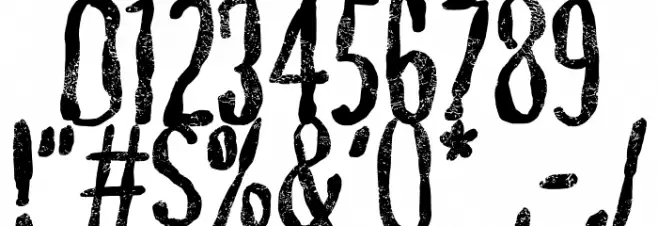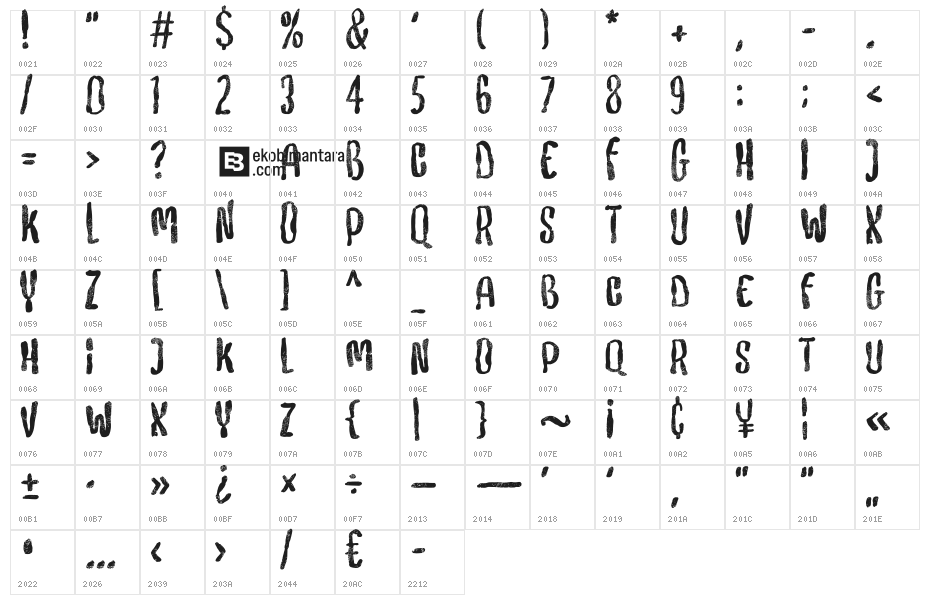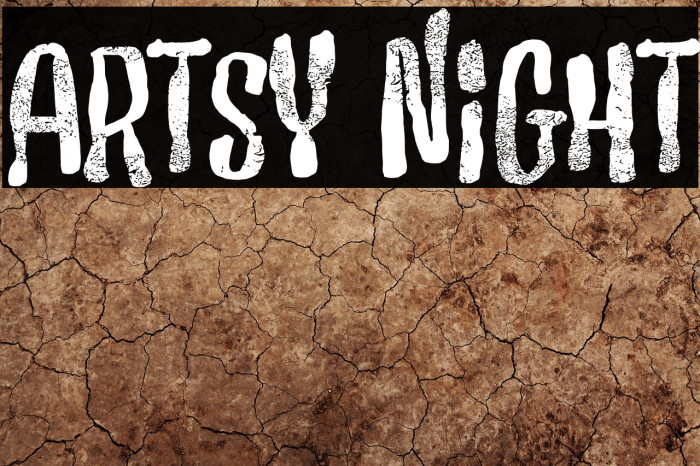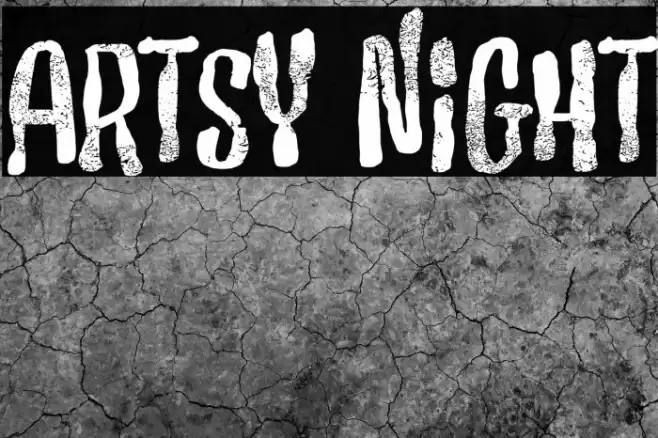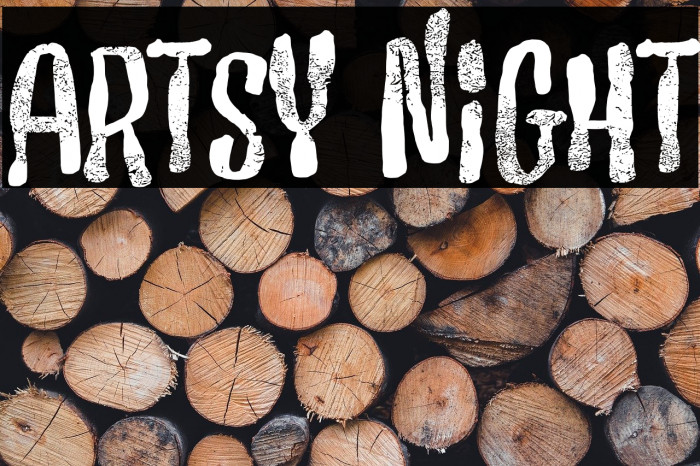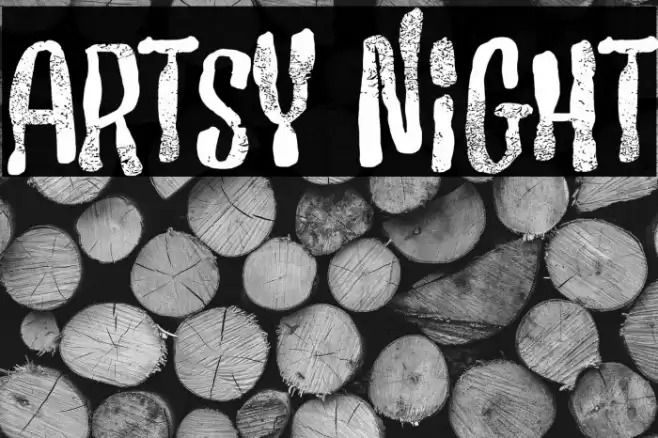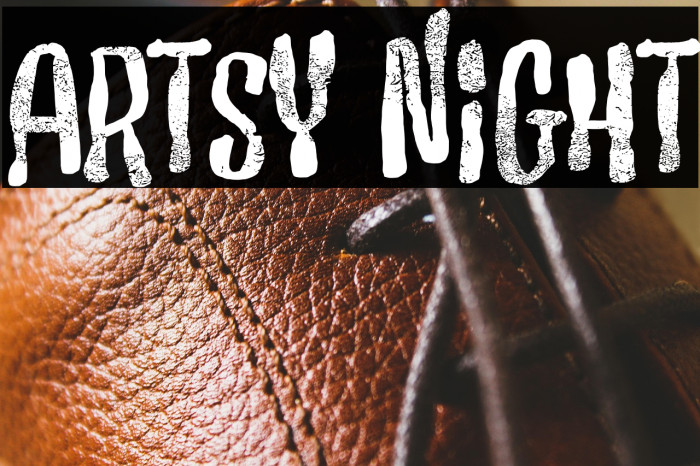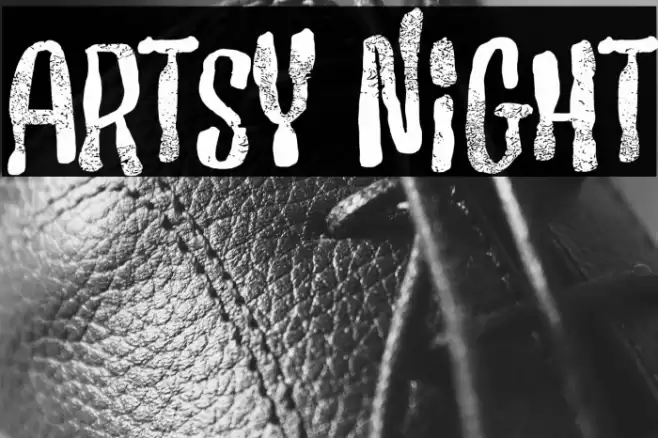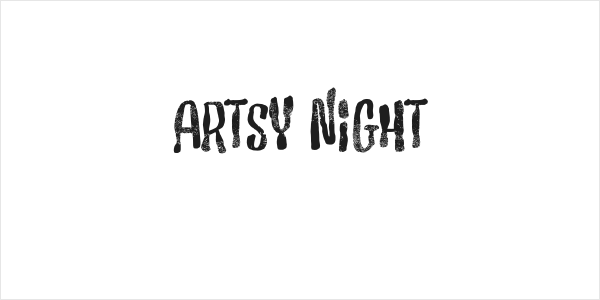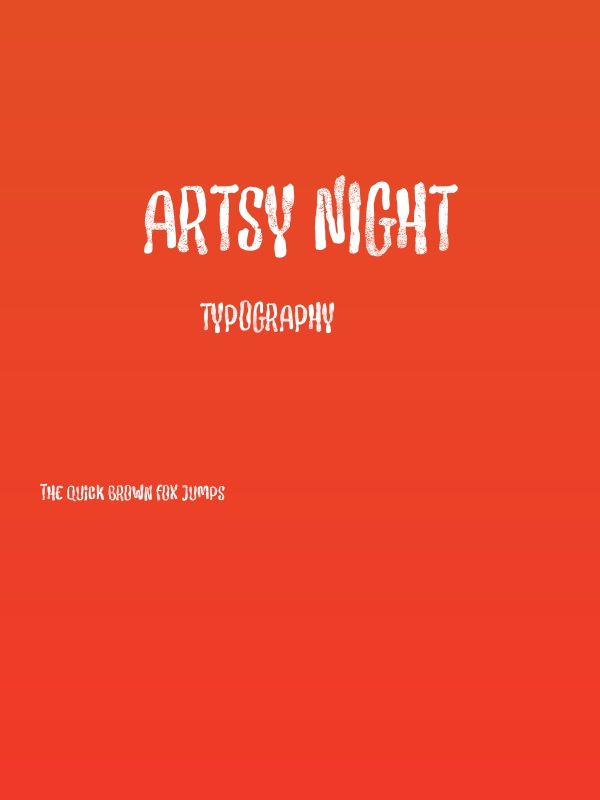
Artsy Night Font
Artsy Night Description
This font features a bold, distressed style with a textured appearance that gives it a rugged, artistic feel. The characters are uneven and irregular, adding a hand-crafted, organic look. The uppercase and lowercase letters maintain a consistent style, with thick strokes and a slightly rough edge that enhances its vintage appeal. The numbers and special characters follow the same design, making the font cohesive and versatile. Its unique texture and bold presence make it ideal for projects that require a strong visual impact.
| Proposed Projects | Ideal for posters, album covers, branding, and any project needing a bold, artistic touch. |